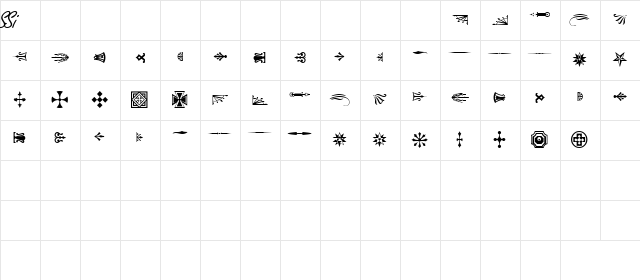
WoodcutOrnamentsOneSSi Regular
Design Context for WoodcutOrnamentsOneSSi Typeface
WoodcutOrnamentsOneSSi taps into classic Western woodtype traditions — bold, characterful, and impossible to ignore.
Perfect for barbecue restaurants, country music branding, vintage poster design, and rustic packaging.
Font Pairing: Combine WoodcutOrnamentsOneSSi with a simple slab or neutral sans — period-accurate companions reinforce the vintage feel without competing for attention.
Pro Tip: Pair WoodcutOrnamentsOneSSi with aged textures or distressed backgrounds to amplify its vintage personality.